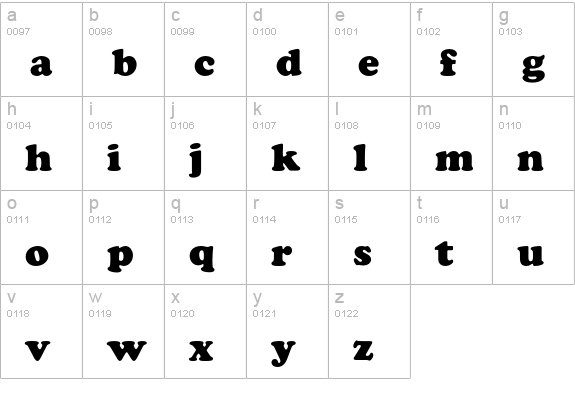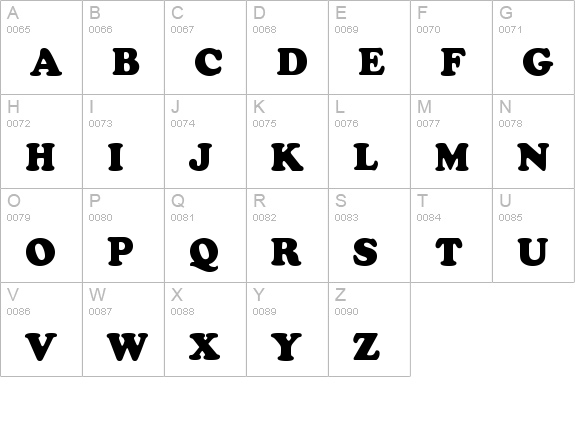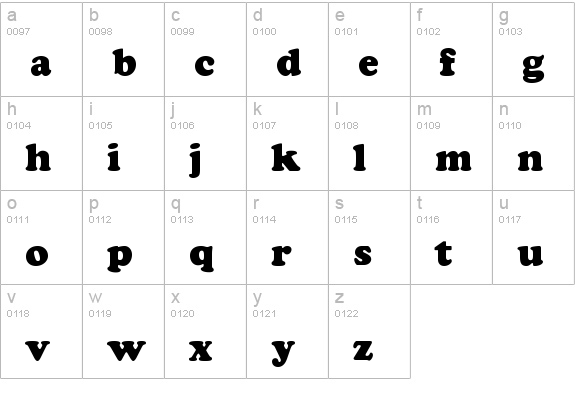
CooperBlackEF-Bold Font Details
CooperBlackEF-Bold is a strong, high-contrast variant in the CooperBlackEF typeface family \xE2\x80\x94 well suited to headlines, attention-grabbing titles, and strong calls-to-action.
CooperBlackEF-Bold is a bold and impactful font that commands attention with its strong and confident appearance. Its thick strokes and rounded edges give it a classic and timeless appeal, making it perfect for headlines, titles, and logos that need to make a statement. This versatile font exudes a sense of authority and reliability, making it a popular choice for branding and marketing materials. The best part? CooperBlackEF-Bold is available for free download at FontsMarket.com! Whether you're a designer looking to add a touch of boldness to your projects or a business owner seeking a font that stands out, CooperBlackEF-Bold is the perfect choice. Download it today and unleash the power of this striking and dynamic font in your designs.